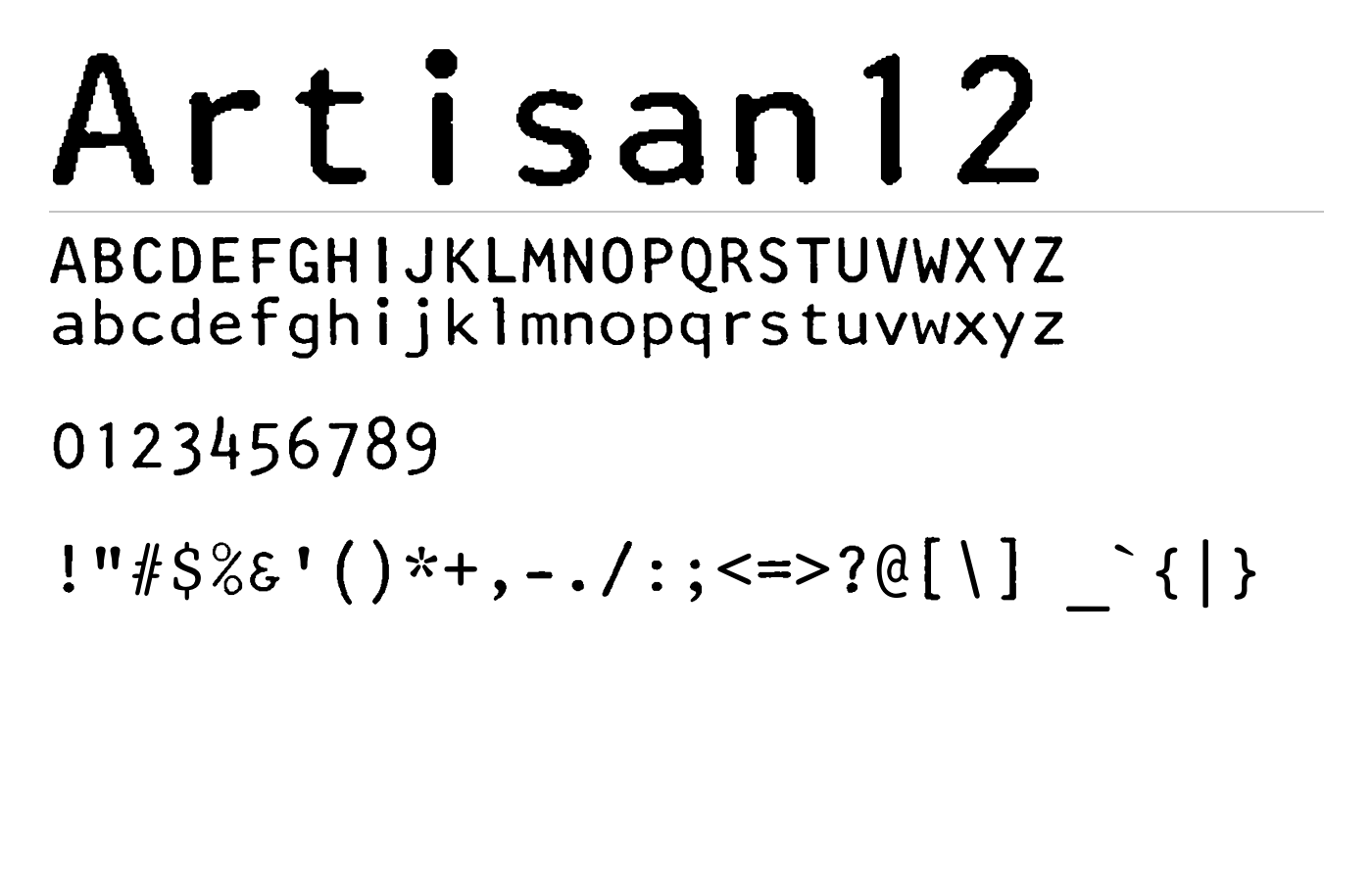
Artisan12 is a monospaced sans serif font with a handmade, slightly rugged feel that mimics typewriter or craft-style lettering. Its consistent weight and narrow width give it a clean yet characterful appearance, making it ideal for tech-inspired designs, coding interfaces, or casual branding that seeks a nostalgic or artisanal vibe. This font works well in headlines, logos, and editorial contexts where a personal, vintage touch is desired.
Artisan12 Font
About Artisan12 Font
| Font family | Artisan12 Font |
| Designer | Volker Busse |